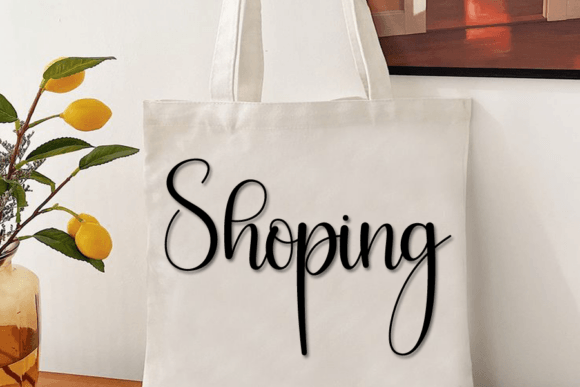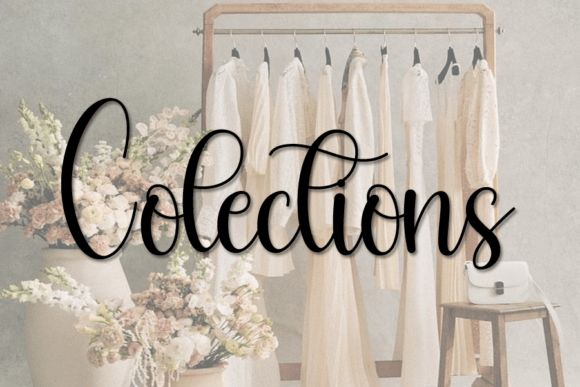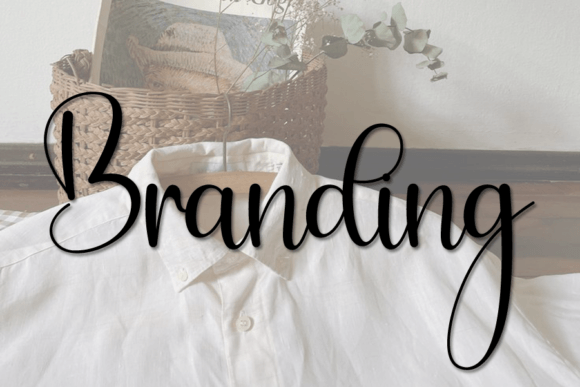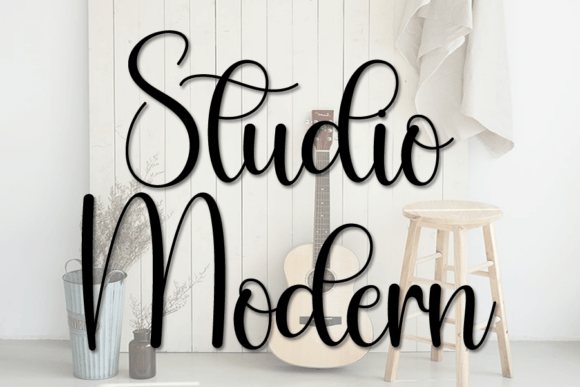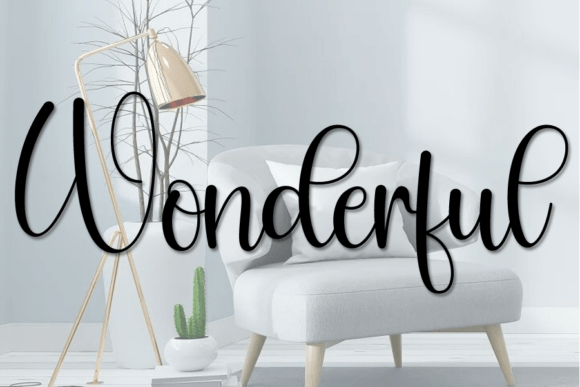
Bhusing Font: A Timeless and Versatile Handwritten Script
In the world of typography, few fonts have managed to capture the essence of simplicity and elegance as effectively as the Bhusing Font. This classic and simple handwritten script has been making waves in the design community, and for good reason. Created in a random and free style, Bhusing Font is the perfect addition to any design project that requires a touch of personality and whimsy.
The Origins of Bhusing Font
Bhusing Font is a unique and original creation, designed to evoke a sense of nostalgia and playfulness. Its handwritten style is reminiscent of traditional calligraphy, yet its simplicity and clean lines make it instantly recognizable as a modern font. Whether you’re a designer, craftsperson, or simply someone who appreciates beautiful typography, Bhusing Font is sure to captivate.
What Makes Bhusing Font So Versatile?
One of the standout features of Bhusing Font is its incredible versatility. This font is suitable for a wide range of applications, from logotypes and headlines to corporate identity, brand identity, and apparel design. Its playful and approachable style makes it perfect for use in:
- Logotype and branding: Create a lasting impression with a custom logotype that showcases your brand’s personality.
- Headlines and titles: Add a touch of elegance and sophistication to your headlines and titles.
- Corporate identity: Use Bhusing Font to create a unique and recognizable visual identity for your company.
- Brand identity: Develop a consistent brand voice and aesthetic with Bhusing Font.
- Apparel industry: Add a personal touch to your clothing and accessories with custom labels and tags.
- Posters and flyers: Create eye-catching promotional materials that grab attention.
- Music, movies, and games: Use Bhusing Font to add a touch of whimsy and personality to your project.
- Magazines and books: Add a touch of elegance to your publication with custom typography.
- Comics and cartoons: Bring your characters to life with custom dialogue and captions.
- YouTube, Instagram, and websites: Use Bhusing Font to create a consistent brand voice and aesthetic across all your online platforms.
Why Designers and Crafters Love Bhusing Font
So, what is it about Bhusing Font that makes it so popular among designers and crafters? Here are just a few reasons:
- Unique and original: Bhusing Font is a one-of-a-kind creation that will set your design apart from the rest.
- Easy to read: Despite its handwritten style, Bhusing Font is incredibly legible, making it perfect for use in a variety of applications.
- Highly versatile: Whether you’re designing a logo, creating a poster, or crafting a custom label, Bhusing Font is the perfect choice.
- Customizable: Use Bhusing Font as a starting point and customize it to fit your unique needs and style.
Tips for Using Bhusing Font in Your Design Projects
Ready to incorporate Bhusing Font into your design projects? Here are a few tips to get you started:
- Experiment with different colors: Bhusing Font looks great in a variety of colors, so don’t be afraid to get creative.
- Mix and match with other fonts: Combine Bhusing Font with other fonts to create a unique and visually appealing typography.
- Pay attention to spacing: Make sure to leave enough space between letters and words to ensure that your text is easy to read.
- Use it consistently: Use Bhusing Font consistently throughout your design project to create a cohesive look and feel.
| Font Name | Bhusing Font |
In conclusion, Bhusing Font is a timeless and versatile handwritten script that is perfect for designers and crafters looking to add a touch of personality and whimsy to their projects. Its unique and original style, combined with its ease of use and high legibility, make it an excellent choice for a wide range of applications. Whether you’re creating a logotype, designing a poster, or crafting a custom label, Bhusing Font is sure to impress.